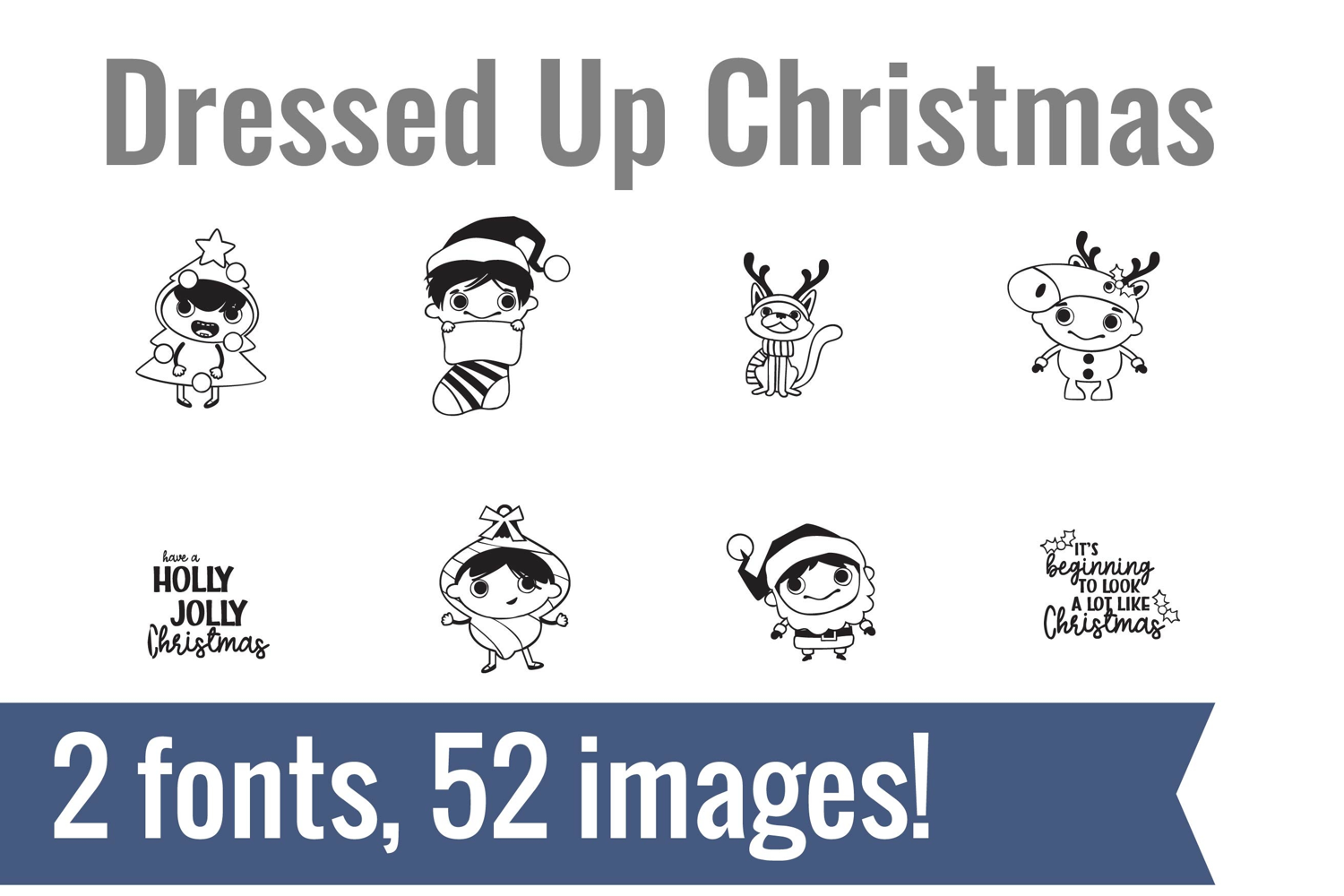
Dressed Up Christmas Dingbats
Unlock endless creativity with two perfectly coordinated fonts! There are two dingbat fonts in this bundle, featuring the cutest Christmas kids wearing holiday costumes and dressed up Christmas gifts.
Tired of spending hours searching for the perfect icons and graphics? Our dingbat fonts put dozens of cohesive, scalable designs at your fingertips. Simply install the font and type a letter to produce a pre-made image. From charming seasonal icons for holiday cards to intricate frames for your invitations, these fonts let you create stunning designs for vinyl cutting, paper crafts, planners, and more.